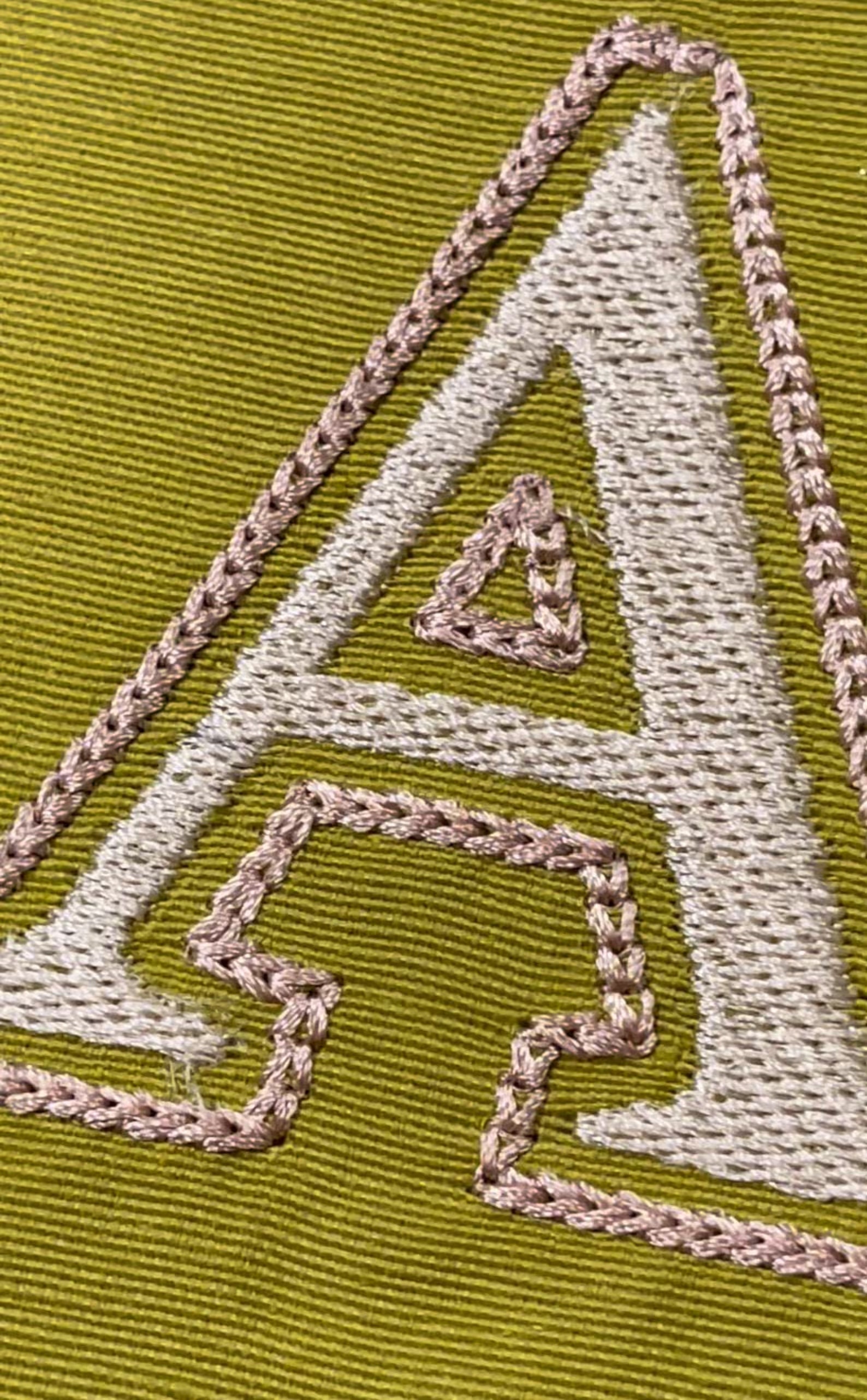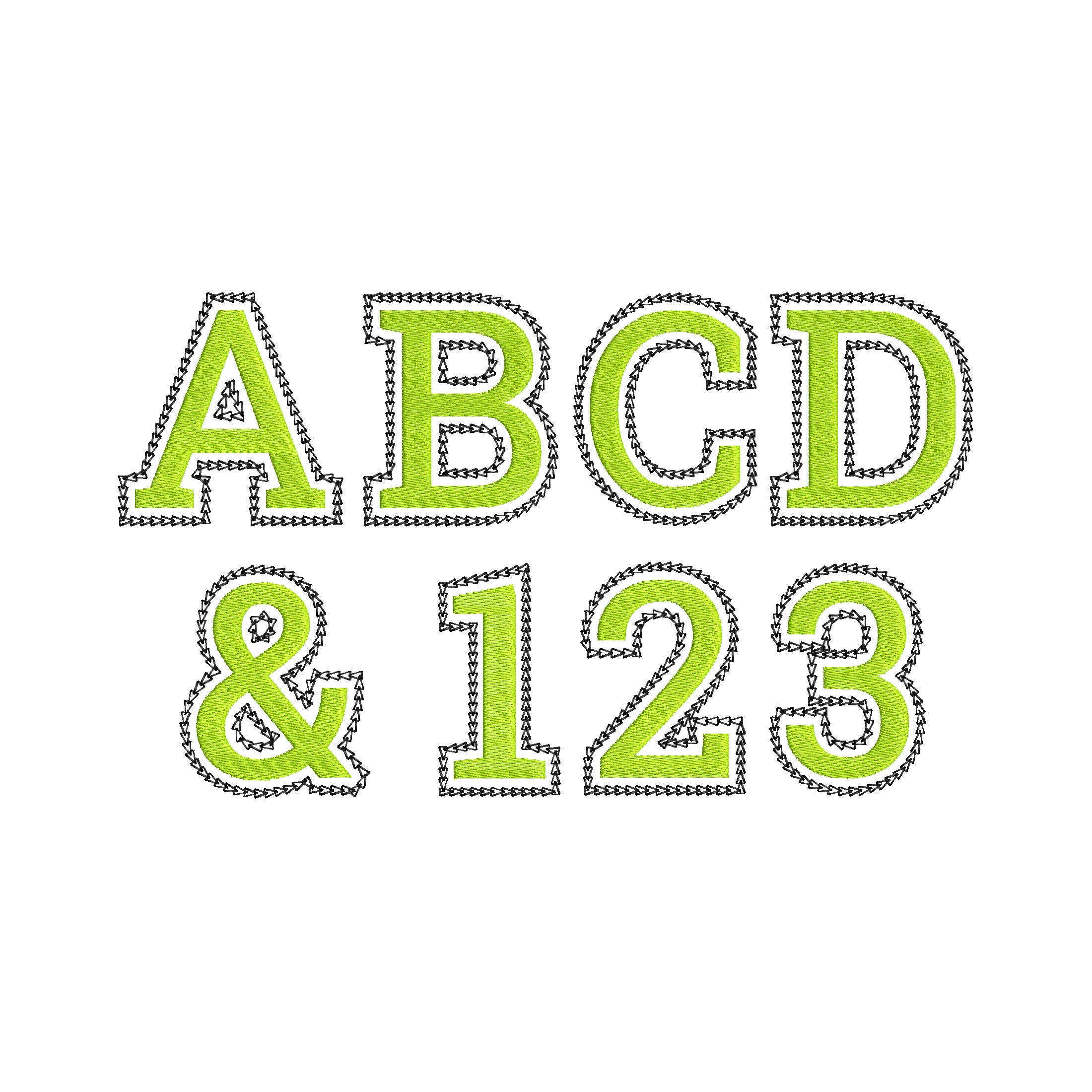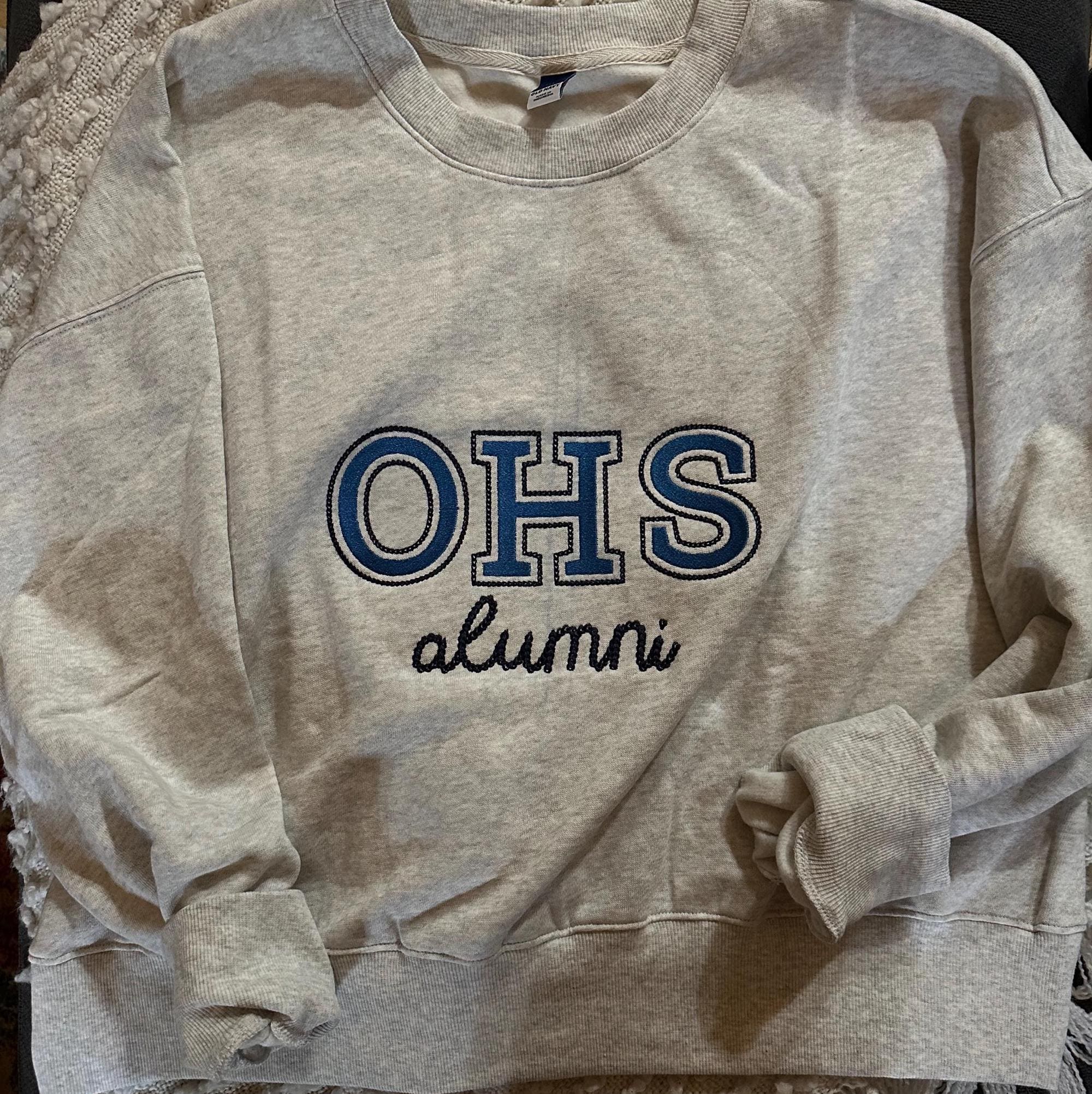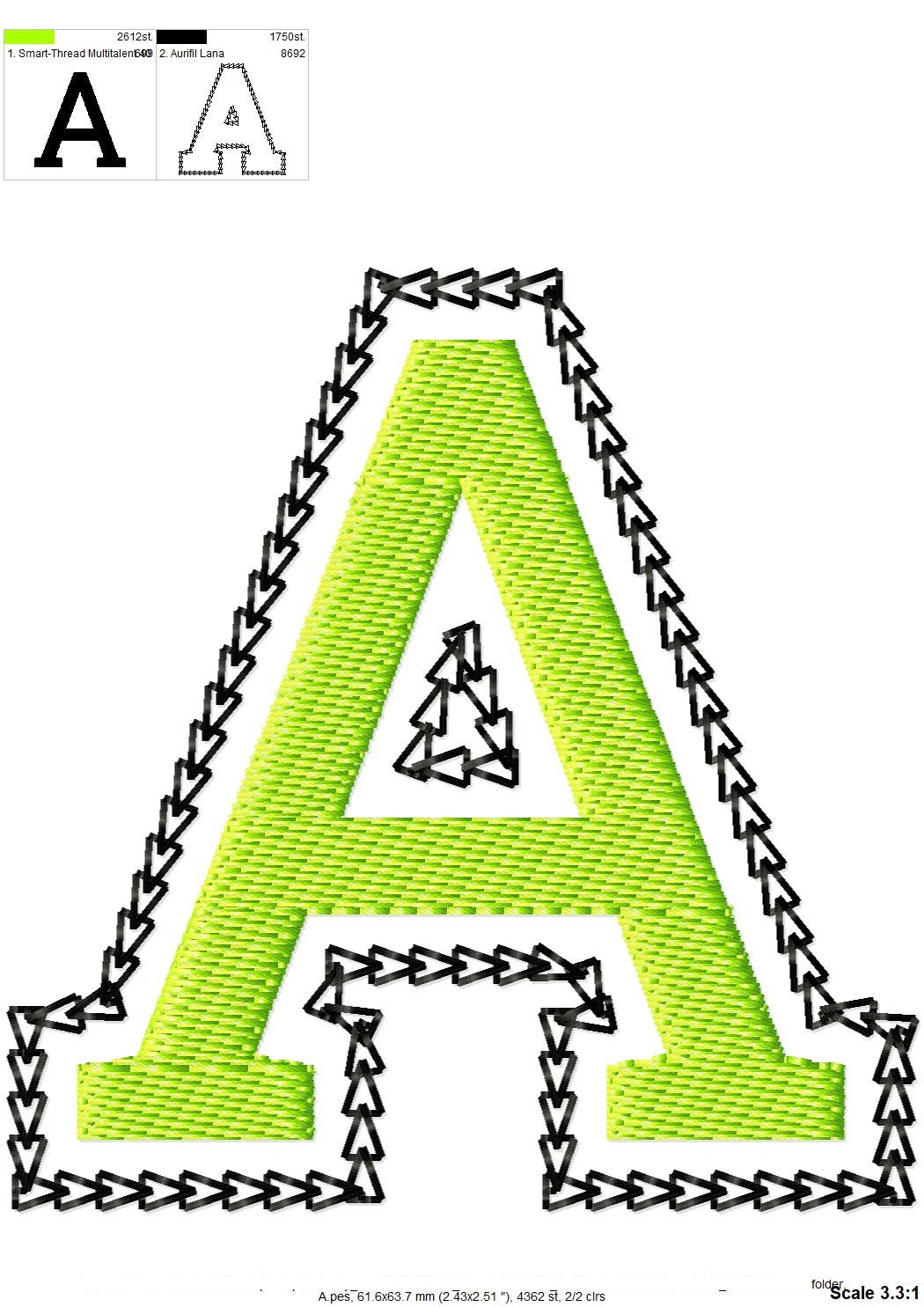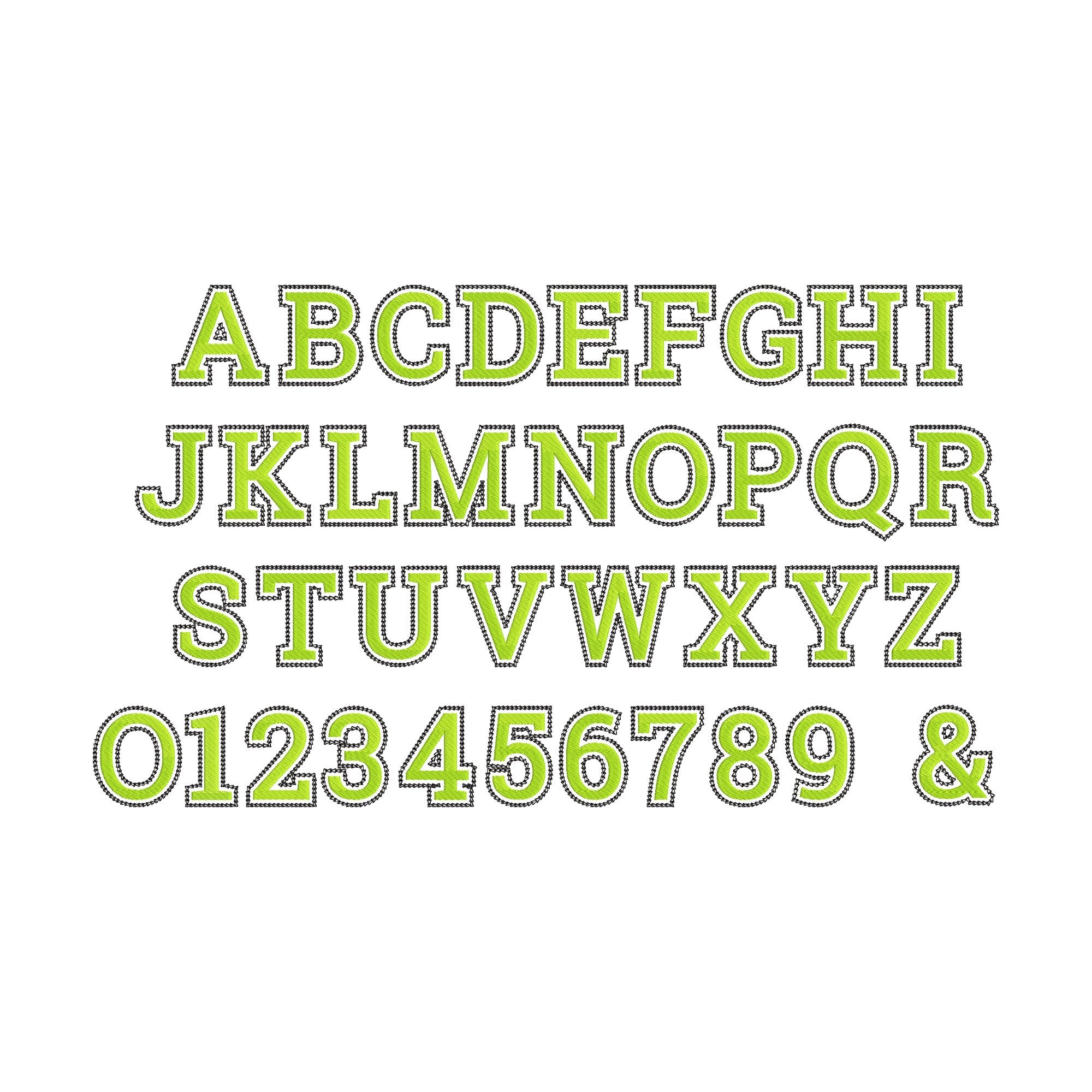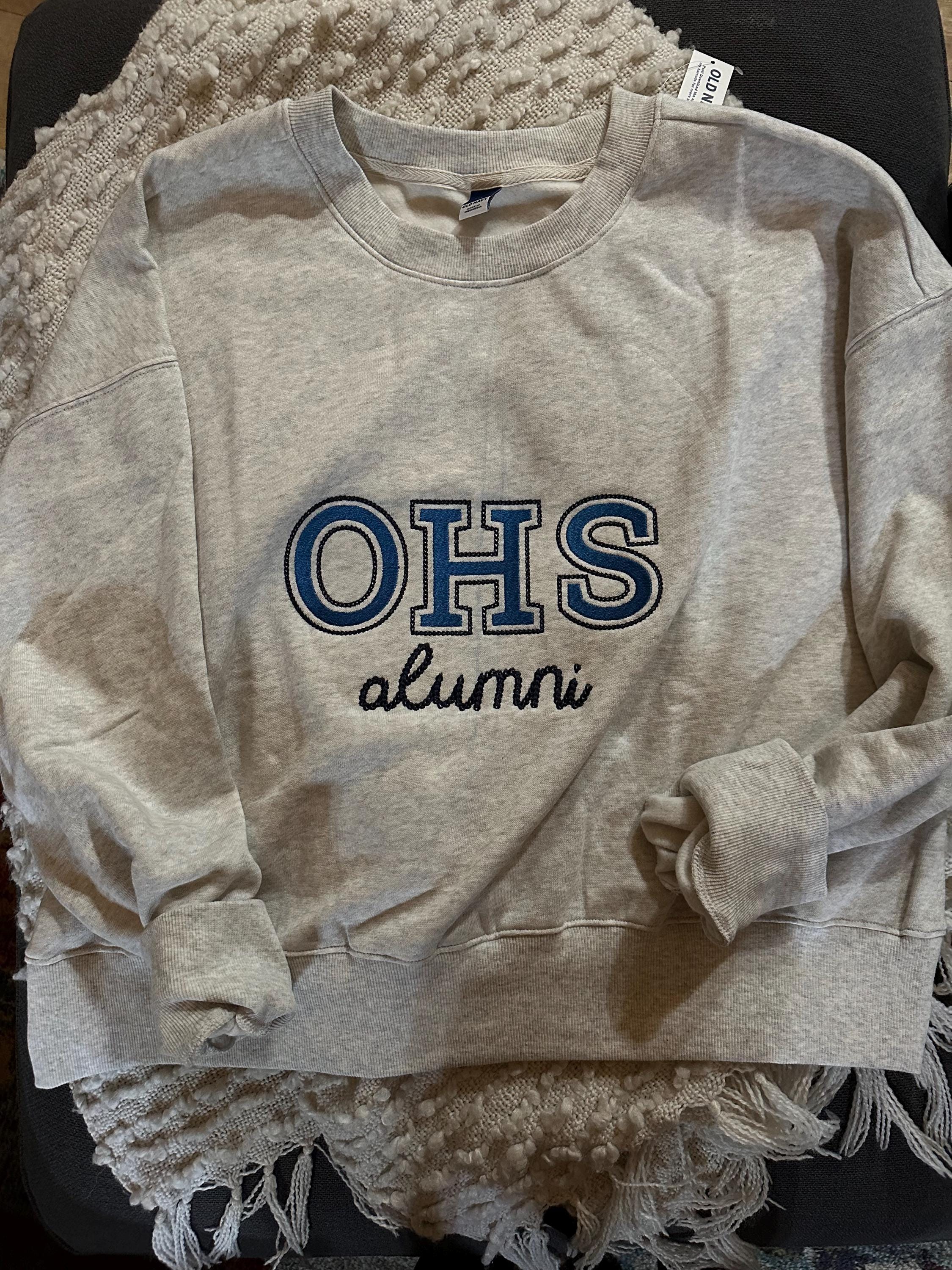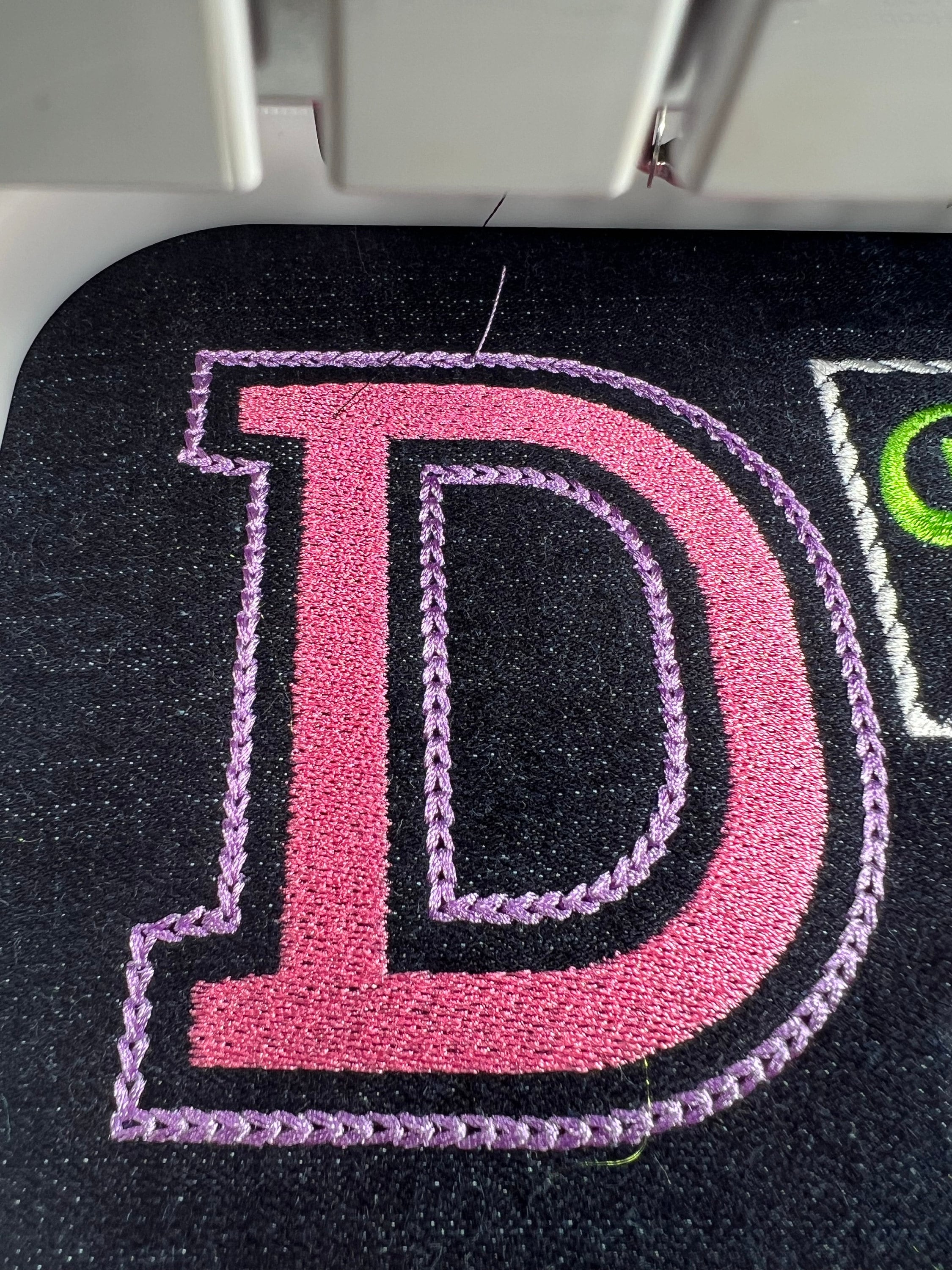
Gorgeous FONT fill stitch and chain stitch outline whole alphabet A-Z and numbers 0-9 machine embroidery designs monogram letters
The letters have fill stitch inside and a beautiful chain stitch outline.
Included whole alphabet capital letters A-Z, numbers 0-9, and ampersand &